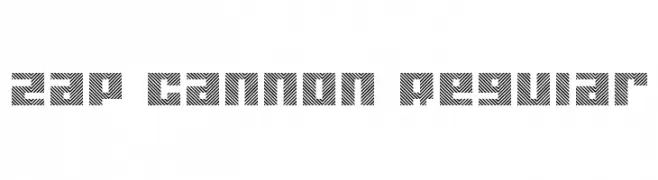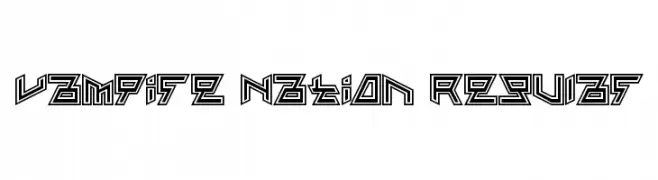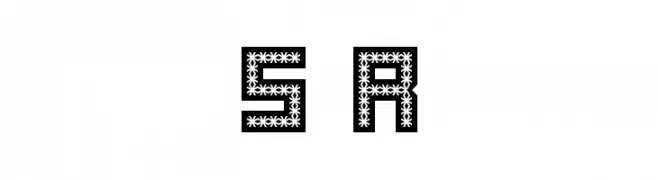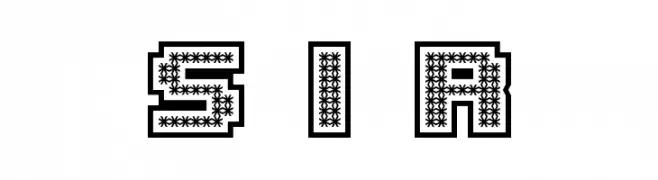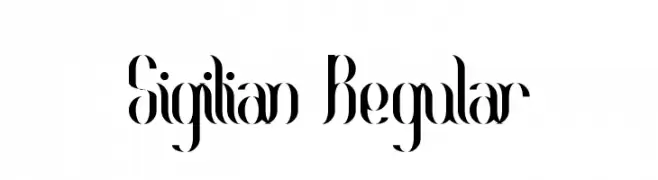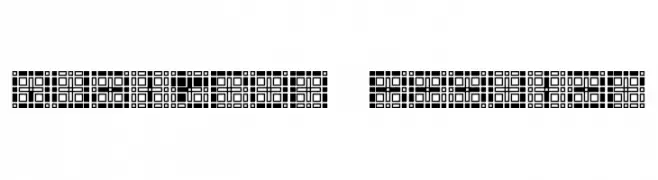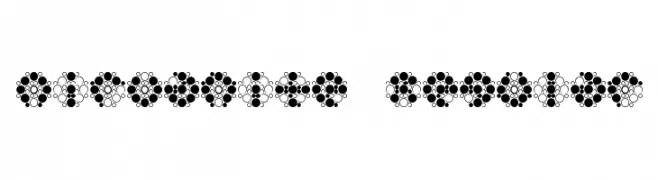
( Pixel Kitchen )
Intricate geometric pattern with interlocking shapes for decorative use.
( Pixel Kitchen )
A bold, geometric font with diagonal line patterns for a futuristic look.
( Pixel Kitchen )
A bold, geometric font with sharp angles and a futuristic look.
( Pixel Kitchen )
A bold, decorative font with a star-patterned fill, ideal for striking displays.
( Pixel Kitchen )
A bold, decorative font with a pixel art-inspired pattern and thick outlines.
( Pixel Kitchen )
A bold, geometric stencil font with a modern industrial aesthetic.
( Pixel Kitchen )
A bold, high-contrast font with elongated, angular characters and decorative flourishes.
( Pixel Kitchen )
A decorative font with intricate geometric patterns and a futuristic aesthetic.
( Pixel Kitchen )
Ornamental geometric font with floral, circular motifs.
( Pixel Kitchen )
Intricate circular patterns resembling fossil imprints, highly decorative.